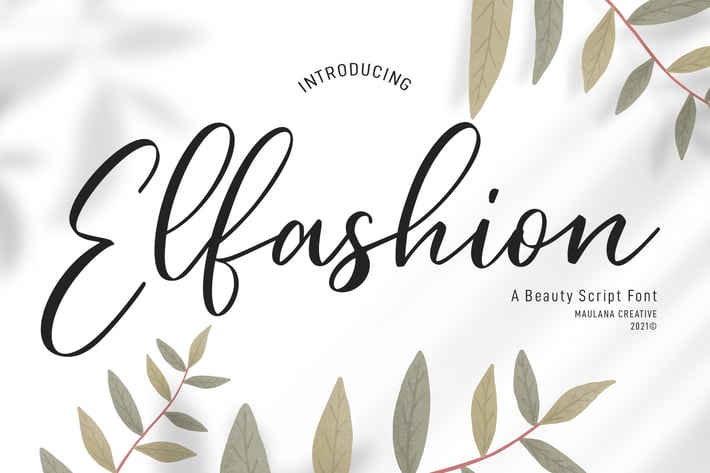
Elfashion Beauty Script Font
Elfashion is a Fancy Beauty casual script font. With high contrast stroke, slanted and fun character with a bit of ligatures. To give you an extra creative work. Elfashion font support multilingual more than 100+ language. This font is good for logo design, Social media, Movie Titles, Books Titles, a short text even a long text letter and good for your secondary text font with sans or serif. Make a stunning work with Elfashion font.